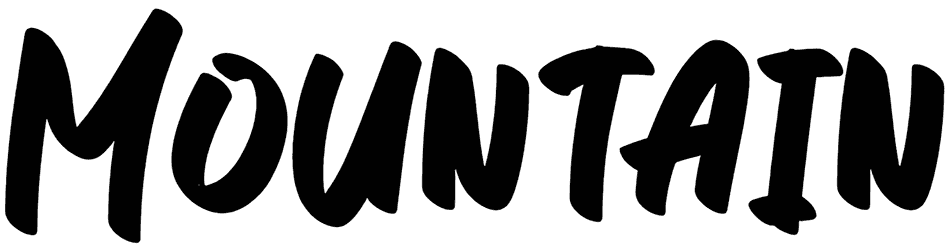
Mountain Font
Mountain, the name given to a script font, has a sleek and sophisticated appearance. Despite the lack of lowercase characters, this font’s adaptability is extremely useful for logos, blog headlines, posters, invitations, stationery, and other related projects.